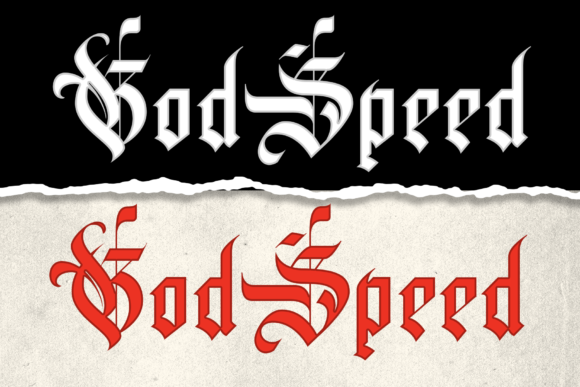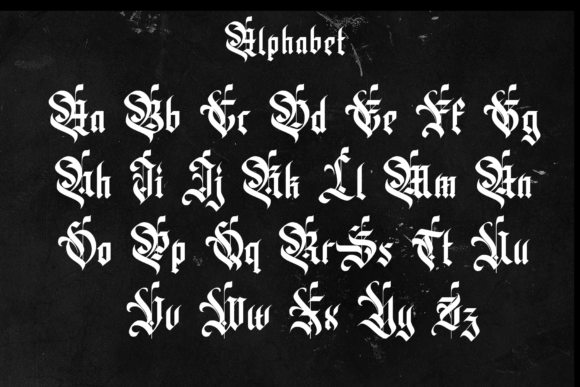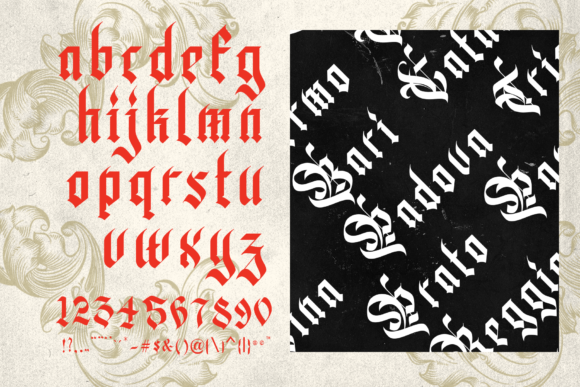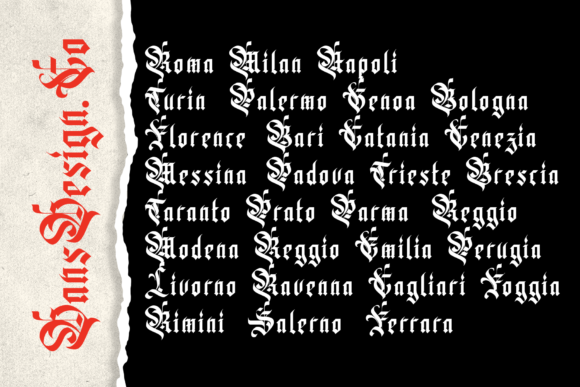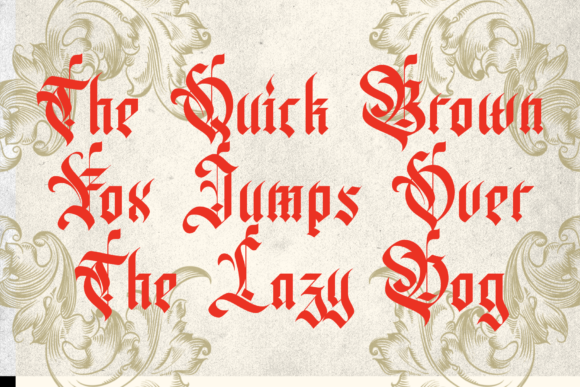
Introducing Forges Font: A Modern Blackletter Masterpiece
In the world of typography, a font can make or break a design. For those seeking a bold and distinctive touch, Forges Font is an exceptional choice. This modern blackletter font is engineered to leave a lasting impression, boasting intricate details and a commanding presence.
What Sets Forges Apart
Forges is not just another blackletter font; it’s a masterpiece of modern typography. Its unique letterforms are meticulously crafted to convey a sense of power, elegance, and sophistication. Each letter is a work of art, showcasing the perfect blend of sharp lines, flowing curves, and ornate details.
Key Features of Forges Font
- Highly Detailed Design: Forges Font features intricate details that set it apart from other blackletter fonts. Its ornate design makes it perfect for creating striking headlines, titles, and logos.
- Unique Letterforms: Each letter in Forges Font is uniquely shaped, ensuring that your text stands out from the crowd. The font’s distinctive character set makes it ideal for branding, packaging, and advertising.
- Modern Aesthetic: Despite being rooted in traditional blackletter typography, Forges Font boasts a distinctly modern aesthetic. Its sleek lines, sharp edges, and flowing curves create a captivating visual experience.
- Versatility: Forges Font is incredibly versatile, making it suitable for a wide range of design applications, from luxury brands to artistic projects.
Use Cases for Forges Font
Forges Font is an excellent choice for various design projects, including:
- Logo Design: Create a lasting impression with a custom logo that incorporates Forges Font. Its unique letterforms and intricate details make it perfect for branding and identity design.
- Headings and Titles: Add a touch of elegance and sophistication to your headings and titles with Forges Font. Its bold, blackletter design ensures that your text stands out.
- Packaging Design: Make your packaging design pop with Forges Font. Its modern aesthetic and highly detailed design make it perfect for product labels, packaging, and point-of-sale displays.
- Advertising and Marketing: Create eye-catching advertisements and marketing materials with Forges Font. Its commanding presence and unique letterforms ensure that your message gets noticed.
Tips for Using Forges Font Effectively
To get the most out of Forges Font, consider the following tips:
- Pair with Contrasting Fonts: Pair Forges Font with contrasting fonts to create visual interest and hierarchy. A sans-serif font or a script font can provide a nice contrast to the bold, blackletter design of Forges.
- Experiment with Colors: Don’t be afraid to experiment with different colors and textures to add depth and dimension to your design. Forges Font looks stunning in metallic colors, gradients, and bold hues.
- Pay Attention to Spacing: Pay attention to the spacing between letters and words to ensure that your text is legible and visually appealing. Adjusting the tracking and kerning can make a significant difference in the overall appearance of your design.
Forges Font is a game-changing blackletter font that can elevate your design projects to new heights. Its modern aesthetic, highly detailed design, and unique letterforms make it an excellent choice for designers and crafters seeking a bold and distinctive touch. With its versatility and wide range of use cases, Forges Font is sure to become a staple in your font library.